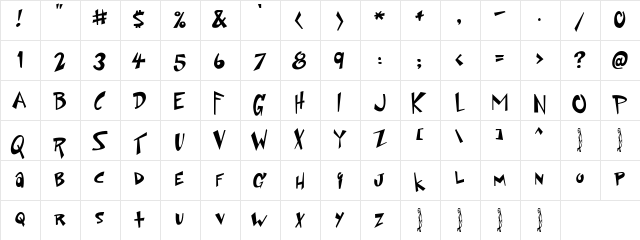
Space Up Yer Life Regular
Design Context for Space Up Yer Life Typeface
Space Up Yer Life is a composed and adaptable typeface that performs quietly and consistently across a wide range of design contexts.